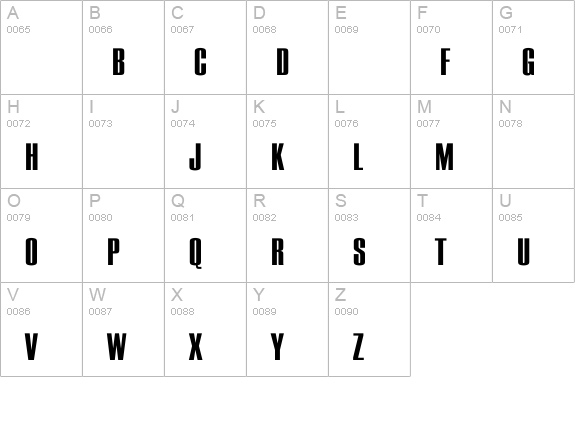
EuropaGrotesqueExtraBold is a striking and powerful font that exudes confidence and modernity. Its bold and assertive design makes it perfect for headlines, titles, and branding materials that demand attention. The sharp edges and clean lines of EuropaGrotesqueExtraBold give it a sleek and sophisticated look that is sure to make a statement. The best part about EuropaGrotesqueExtraBold is that it is available for free download at FontsMarket.com. This means you can easily access this premium font without any cost, making it a valuable addition to your design arsenal. Whether you're working on a professional project or a personal creative endeavor, EuropaGrotesqueExtraBold is a versatile font that will elevate your designs to the next level. Don't miss out on the opportunity to enhance your typography with EuropaGrotesqueExtraBold – download it for free today at FontsMarket.com and unleash its bold and impactful style in your next design project.